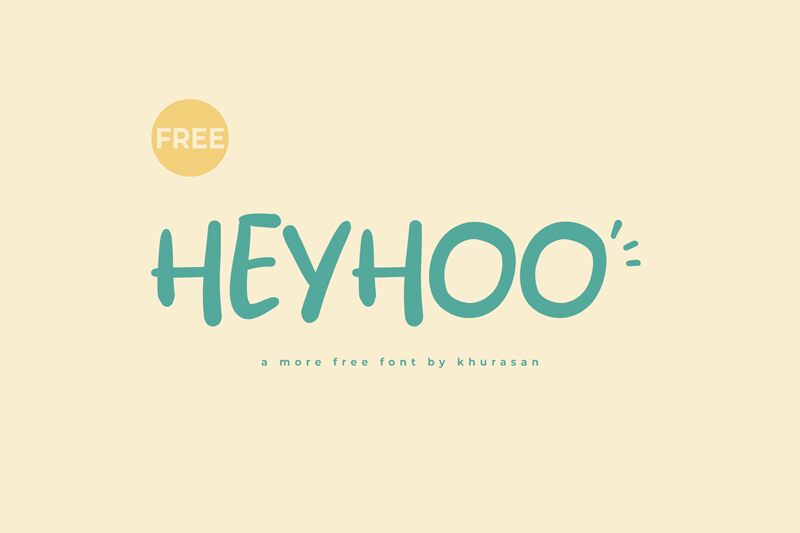
Heyhoo
Heyhoo emerges as a charming handwritten font that carries the personal touch of its creator, Khurasan. With its fluid, expressive character shapes and a friendly, approachable vibe, Heyhoo exudes creativity and warmth. Each stroke embodies a casual elegance, making the font feel both authentic and crafted with care.
This handwritten style lends itself perfectly to designs requiring a personal, handmade feel such as invitations, greeting cards, and branding for boutique businesses. Its aesthetic appeal lies in its blend of whimsy and legibility; Heyhoo is playful without sacrificing readability.
Whether it's for digital media or print, Heyhoo stands out for its versatility in conveying individuality and charm. From the pages of a children's book to the logo of an artisanal cafe, this font is well-suited to projects that aim to be distinctive and inviting.